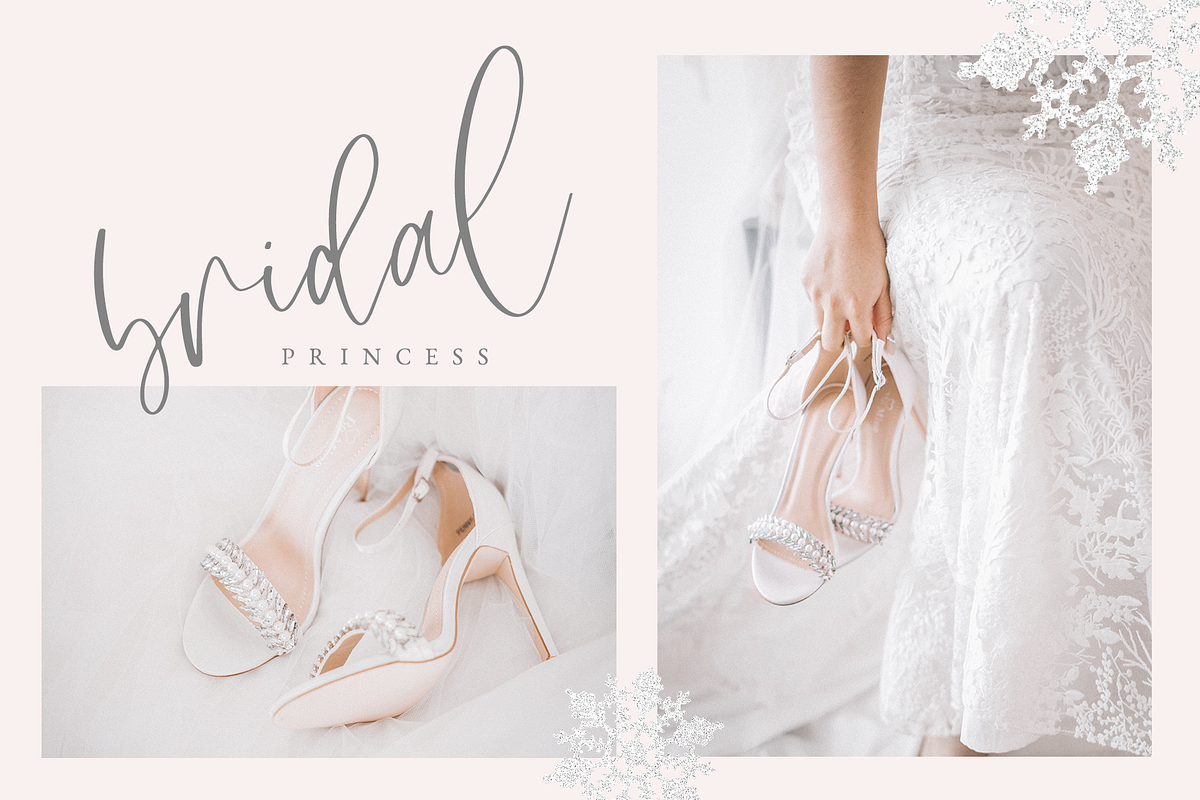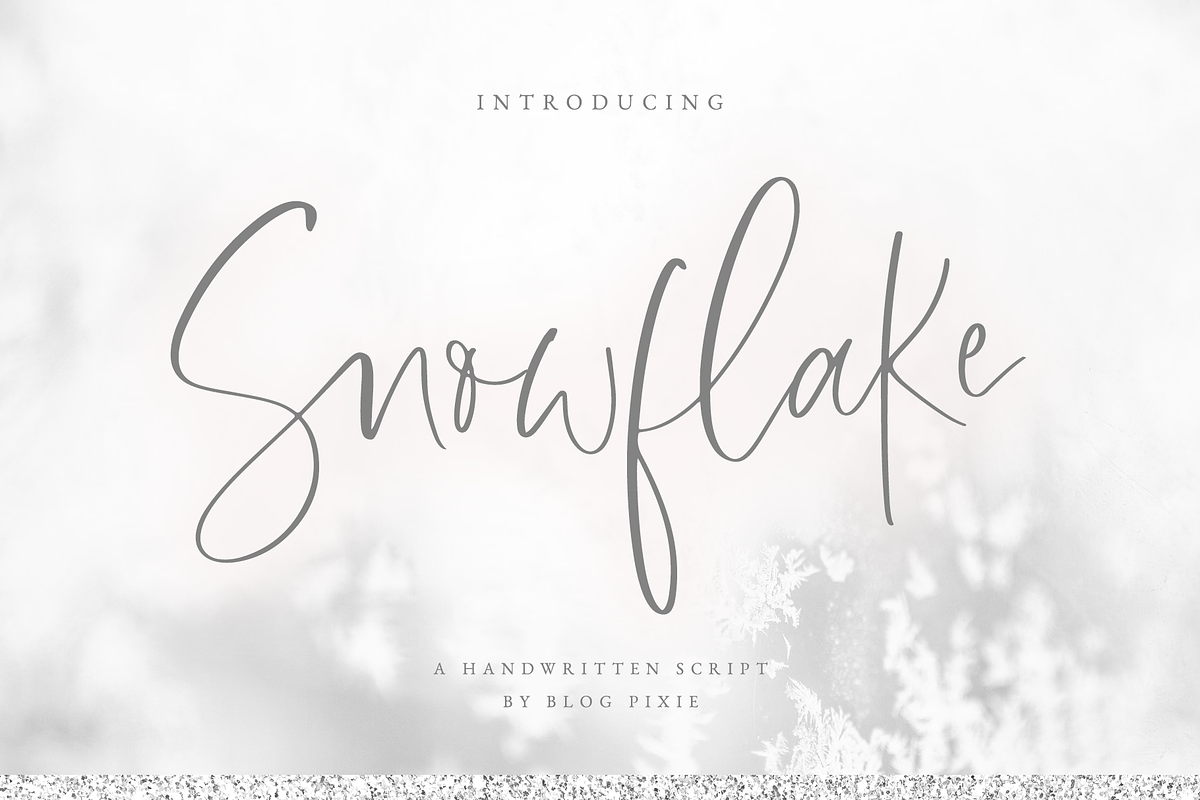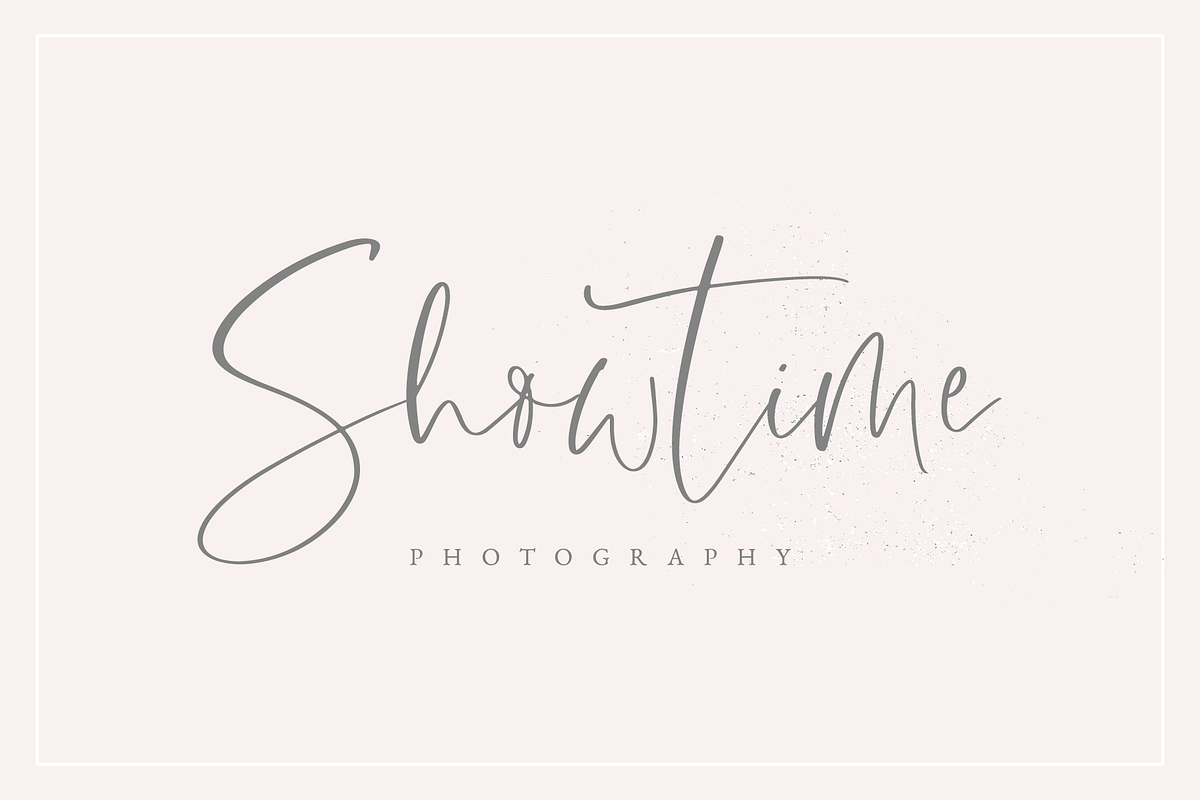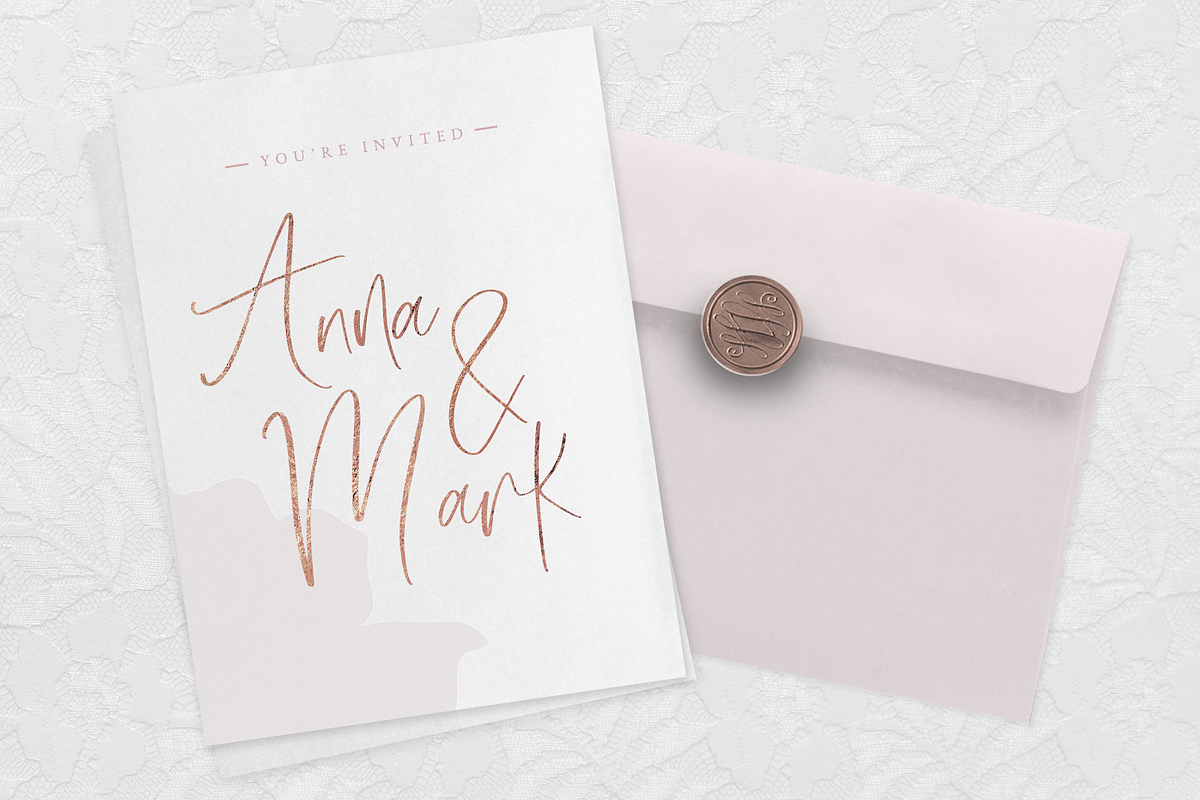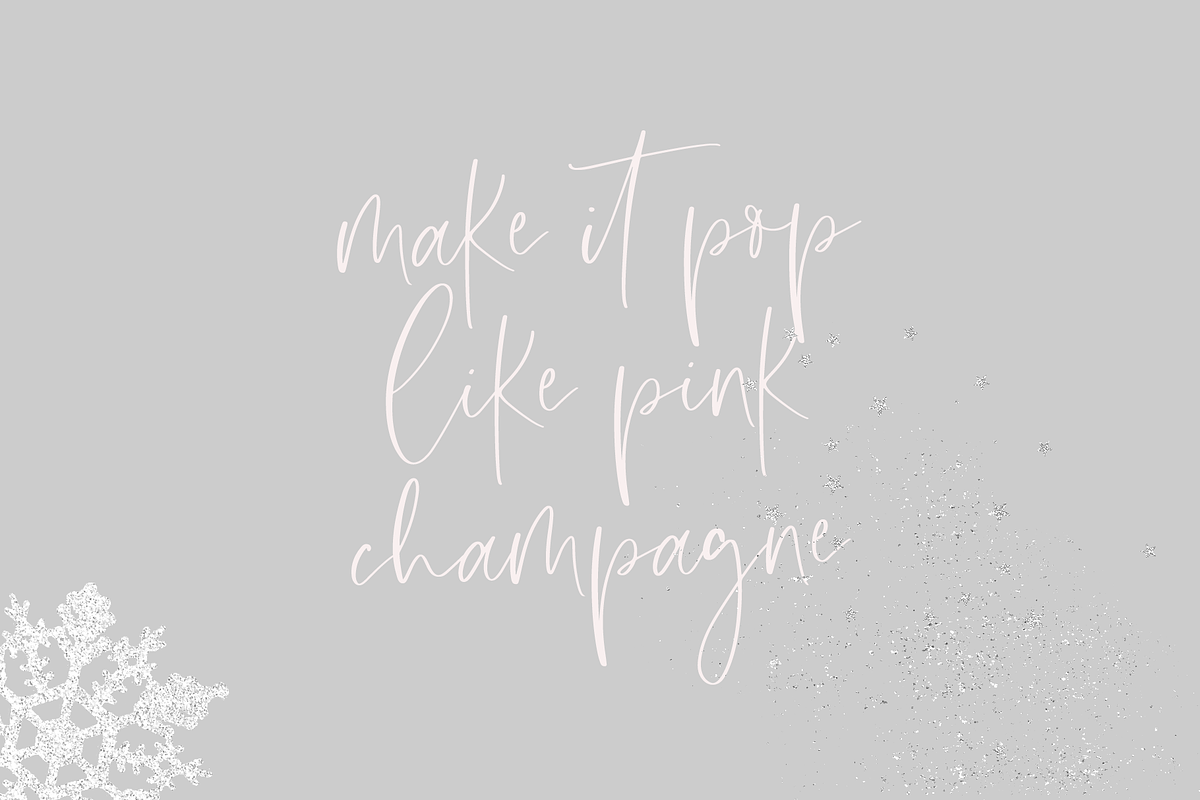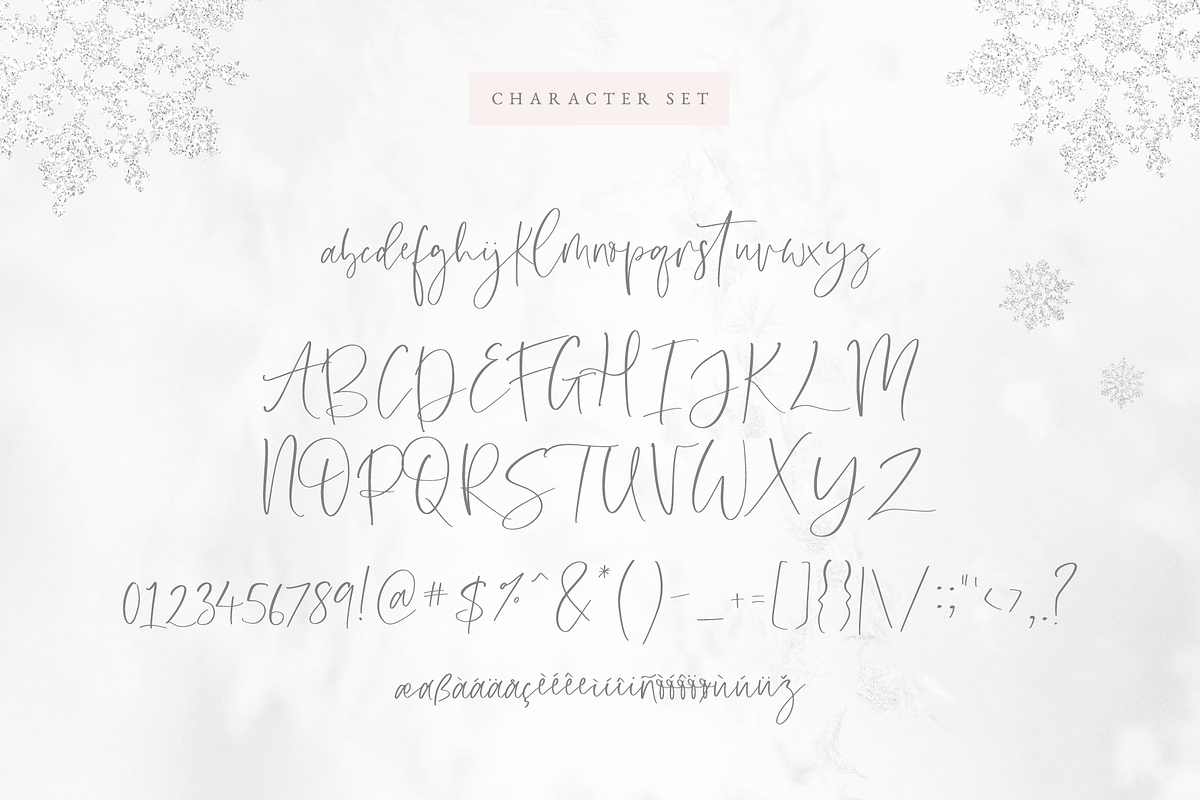
Snowflake Script Font
In a bouncy yet flowing hand lettered style, it's perfect to add a touch of stylish flair to any creative project.
Use Snowflake script for quotes, invitations, stationery, print design, logos, magazine, eBooks and logos.
Why Snowflake Script Font is worth a look
Snowflake Script Font by Design Pixie fits naturally into Branding, posters, packaging, typography.